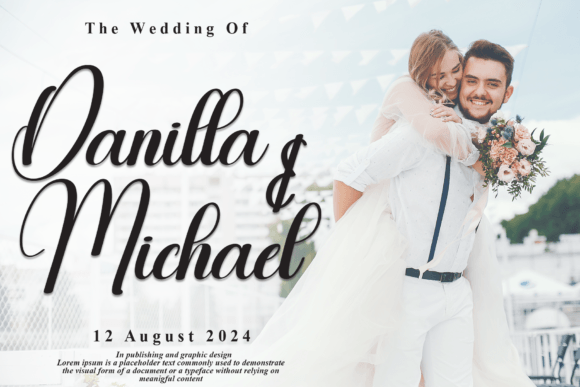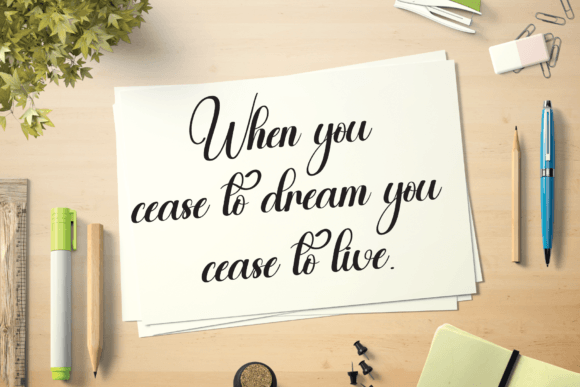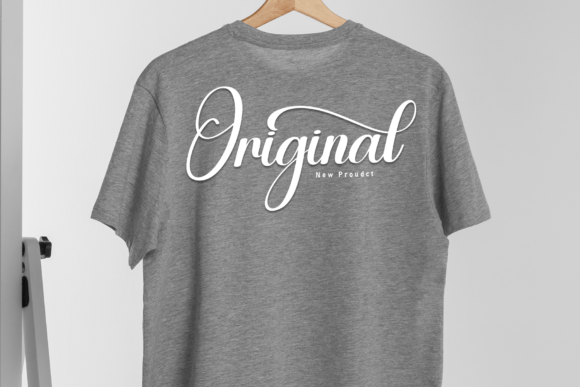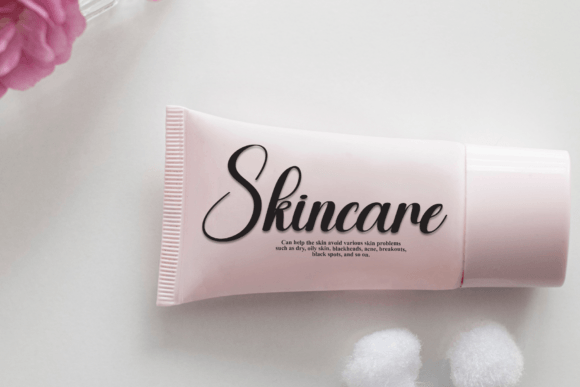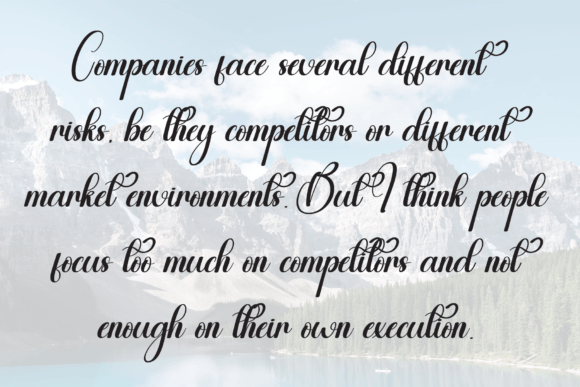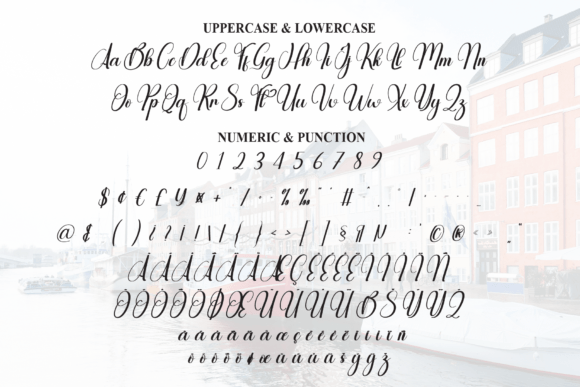
Discover the Timeless Charm of the Amsterdam Font
Remember that moment when you’re brainstorming ideas for a new project, and the perfect font suddenly pops into your mind? For many designers, it’s a moment of pure creative bliss. For me, it was the Amsterdam Font that stole the show. This stylish handwritten script font exudes elegance and charm, making it perfect for invitations, logos, and branding.
The Amsterdam Font is more than just a pretty face – it adds a personal and sophisticated touch to any design. Its delicate strokes bring warmth and creativity to your projects, setting them apart from the crowd. Whether you’re a seasoned designer or just starting out, the Amsterdam Font is a valuable addition to your toolkit. Its versatility and timeless charm make it a must-have for any creative project.
Amsterdam Font Key Features
- Unique Characteristics: Amsterdam Font features a unique, hand-drawn aesthetic with subtle flourishes and ornaments, giving it a distinctive and elegant feel.
Amsterdam Font Review
Overall, I found Amsterdam Font to be a visually striking choice for any design project. ✨ Its unique blend of modern and vintage characteristics makes it stand out in a crowded font market. The font’s subtle imperfections and irregularities add a touch of authenticity, reminiscent of handwritten text.
One of the things that impressed me about Amsterdam Font is its versatility. It works well in both digital and print media, and its open feel makes it perfect for titles, headings, and short blocks of text. ✨ Additionally, the font’s bold and regular weights provide a nice contrast, making it easy to create visually appealing layouts.
While Amsterdam Font has its strengths, it also has some limitations. ⚠️ One of the main issues is its lack of support for smaller text sizes. At sizes below 12 points, the font can become difficult to read, and its irregularities may start to feel overwhelming.
In conclusion, Amsterdam Font is a great choice for designers looking for a unique and eye-catching font. However, it’s essential to consider its limitations and use it judiciously in your designs. With the right application and size selection, Amsterdam Font can be a valuable addition to any design project.
- Unique blend of modern and vintage characteristics
- Subtle imperfections and irregularities
- Open feel, perfect for titles and headings
- Bold and regular weights for contrast
- Limited support for smaller text sizes
Getting the Most Out of the Amsterdam Font
To get the most out of the Amsterdam Font, try the following:
Pair it with a clean and minimalist design aesthetic.
Use it for headings and titles to create visual hierarchy.
The Amsterdam Font is commonly used for:
Food and beverage branding.
Travel and tourism marketing.
Interior design and architecture.